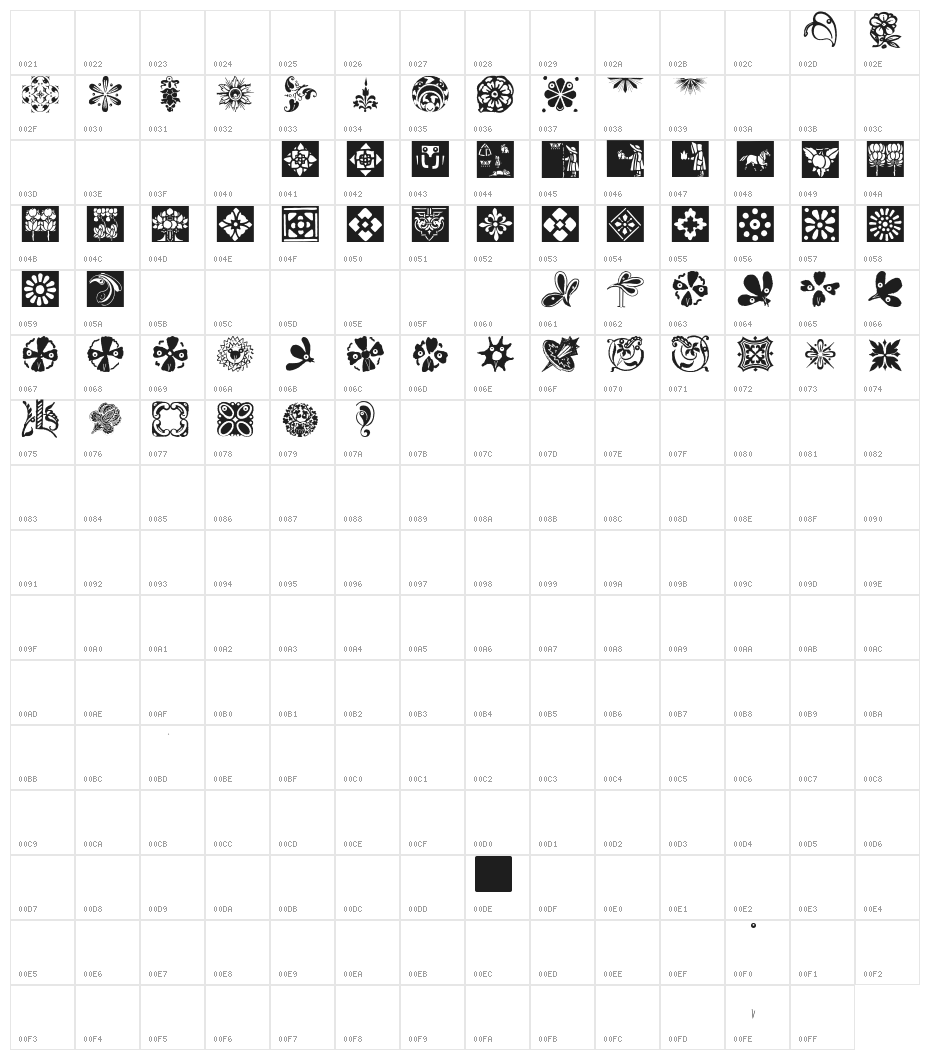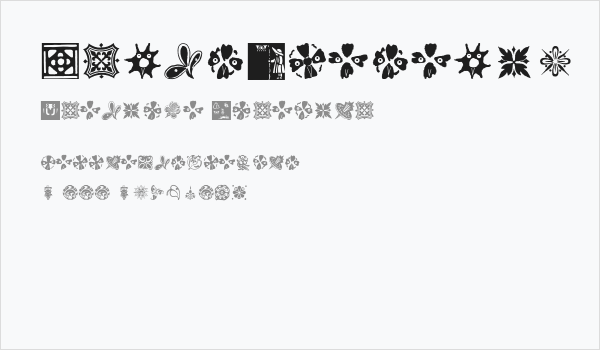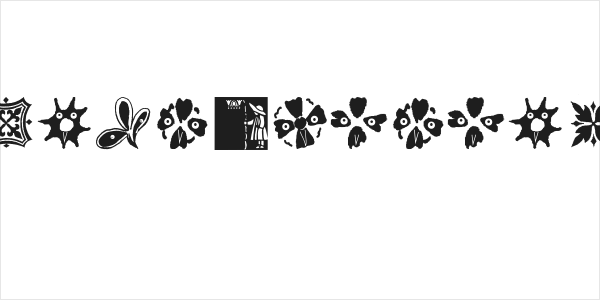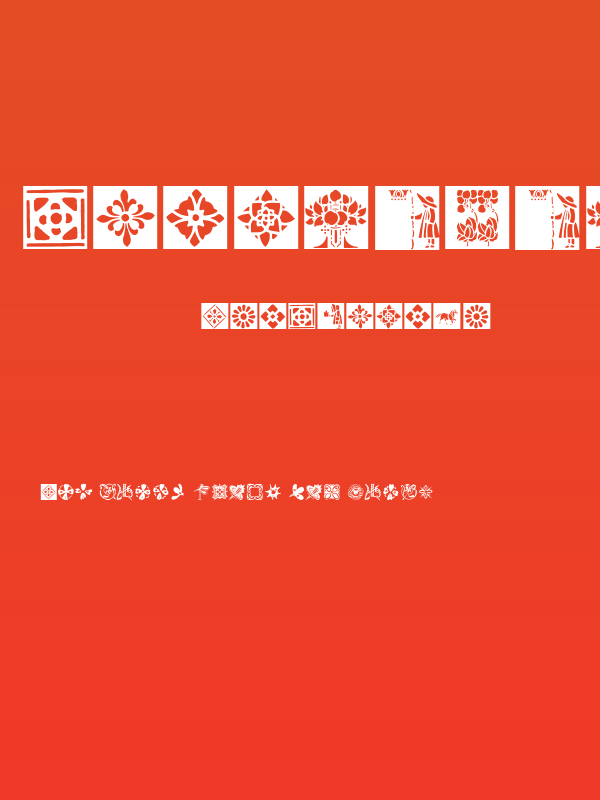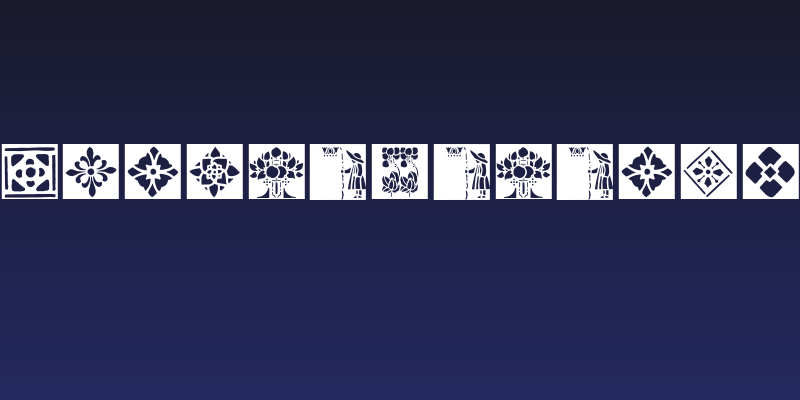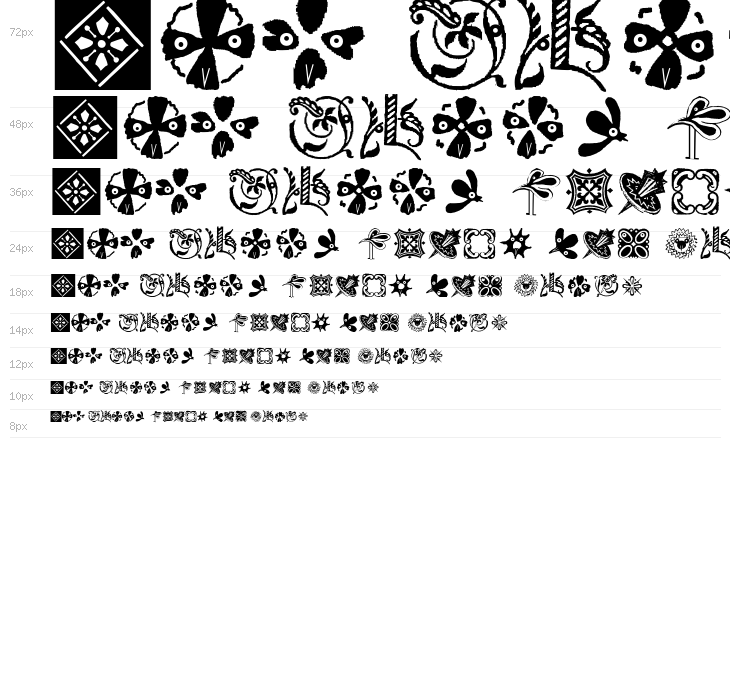
OrnamElements Font
OrnamElements Description
A decorative collection of ornamental glyphs featuring floral, geometric, and abstract motifs. The designs are intricate, with high contrast between thick black shapes and white space, evoking a vintage or classical aesthetic. Each character is a unique ornament rather than a standard letter or number.
| Overall Style | Vintage, Decorative |
| Use Case | Decorative elements, Borders, Accents |
| Proposed Projects | Borders, invitations, certificates, decorative dividers, scrapbooking, branding accents. |